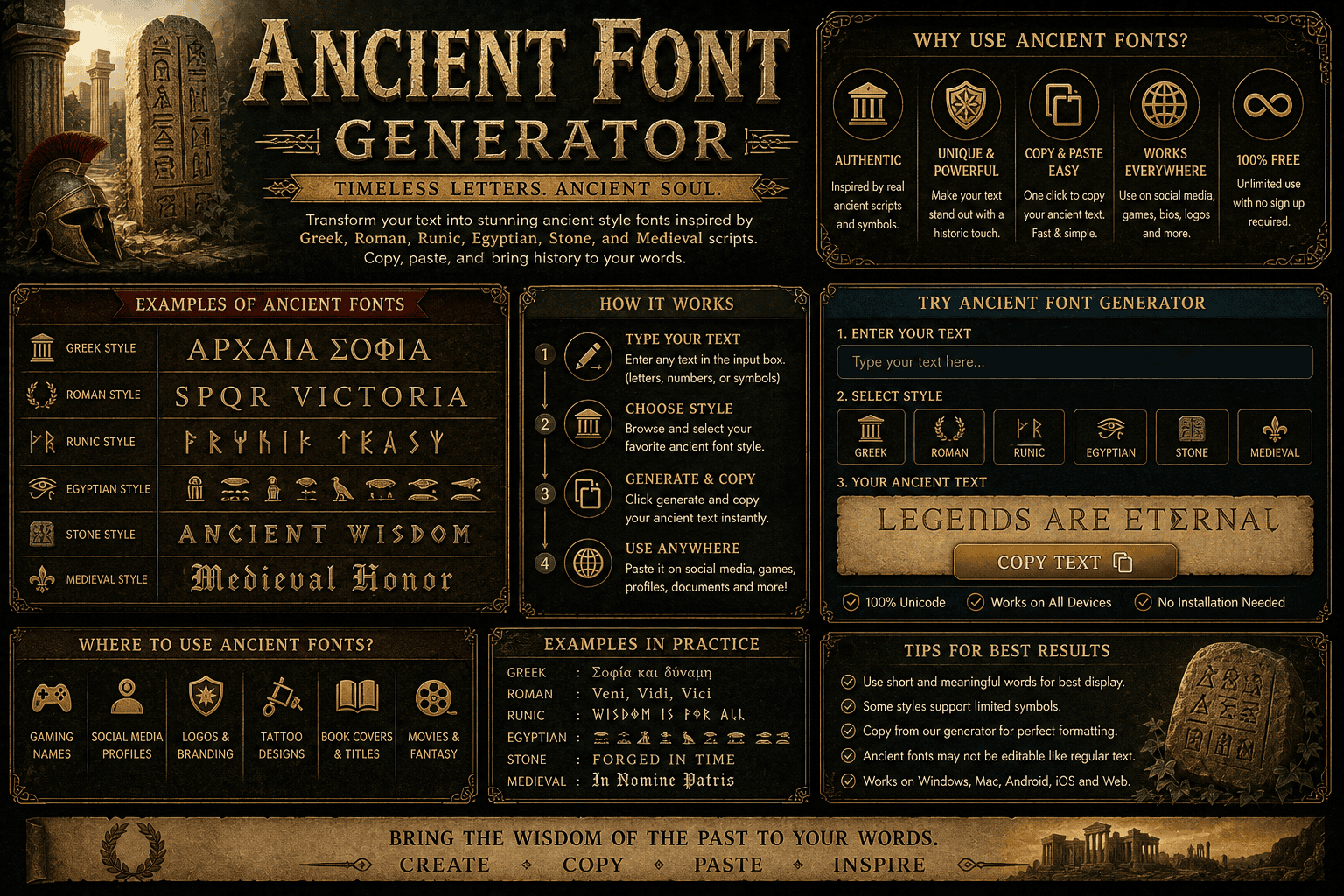
An ancient font generator becomes useful when modern layouts need historical character without sacrificing readability. I have found that combining Greek typography, classical inscriptions, and text styles can make designs feel deliberate rather than decorative.
Instead of treating every historical typeface as decoration, I test Greek characters, English characters, multiple styles, and upper and lowercase options against the message, then refine the font style before download for real projects today.
Enter your text, select a font style, and study its appearance before generating. I usually compare several forms digitally, because readable lettering keeps projects practical while preserving historical aesthetics without sacrificing clarity or personality anywhere.
Then Copy and paste the result, check spacing and alignment, and inspect texture at different sizes. For an engraved look, I prefer restrained ruggedness and a focused design, letting instant results guide adjustments before publishing.
Popular Uses / Where To Use Your Font
I see old english fonts perform well on Halloween posters, but ancient temples also inspire museum exhibits, book covers, and classroom projects where historical aesthetics need a recognizable typeface without overwhelming the surrounding design visually.
For branding, invitations, tattoos, or social posts, I favor gothic script when the message needs timeless beauty; designers can pair it with marble white, golden olive, or texture across custom prints for a period-inspired finish.
About The Font Style
Textualis gives the style a disciplined medieval character, while blackletter and Fraktur add dense, formal structure. In practice, I find this combination works best when stylized letterforms remain readable and spacing stays deliberate.
Classical typography often balances authority with ornament, and a calligraphic form can soften rigid construction without losing historical character. For projects seeking an aged appearance, Roman influence can provide cleaner proportions and stronger visual balance.
Create Text Graphics With Old English Fonts
Old English lettering can turn short phrases into polished text graphics, especially when an Old English font forms sharpen the historical mood. I often pair heavy bold letterforms with restrained layouts for readability online today.
For Instagram posts, logos, or book covers, the Old English structure adds authority without overwhelming content. Using a font family with clear stylized letterforms helps preserve character while keeping generated text practical and visually balanced.
Why Choose Our Greek Font Generator?
Our free Greek font generator gives creators a practical way to explore authentic Greek alphabet characters without sacrificing readability. I especially value its balance between classical Greek elegance, customization, and modern digital flexibility for designers.
Rather than treating Greek letters as decoration, the tool supports meaningful cultural projects, educational work, and designs that benefit from historical significance. Its varied fonts make ancient character forms feel accessible today across digital projects.
The Greek Alphabet
The Greek alphabet has shaped Western writing systems for roughly 2,800 years, yet its value is not merely historical. Its letters still distinguish inscriptions, scholarly typography, and modern treatments of classical literature today with clarity.
In practice, I find each Greek letter useful for balancing character and readability: familiar script forms support philosophy and science projects, while subtle spacing preserves the disciplined rhythm associated with ancient texts without copying antiquity.
Important Note
Important: an Ancient Font Generator may create stylized text, but Unicode characters can behave differently across apps, websites, and profiles. Always check readability, historical accuracy, and copy/paste behavior before publishing your generated design online clearly.
From my experience, authentic Greek text and ancient Hellenic scripts need context; decorative effects should support the message, not distort it. For academic work, verify characters before printing, engraving, or using them commercially for projects.
Ancient-style fonts can be used for Instagram bios, TikTok captions, gaming usernames, Discord profiles, social media posts, logos, invitations, historical-themed designs, and creative branding. They are especially useful when you want your text to look classic, mysterious, or legendary.